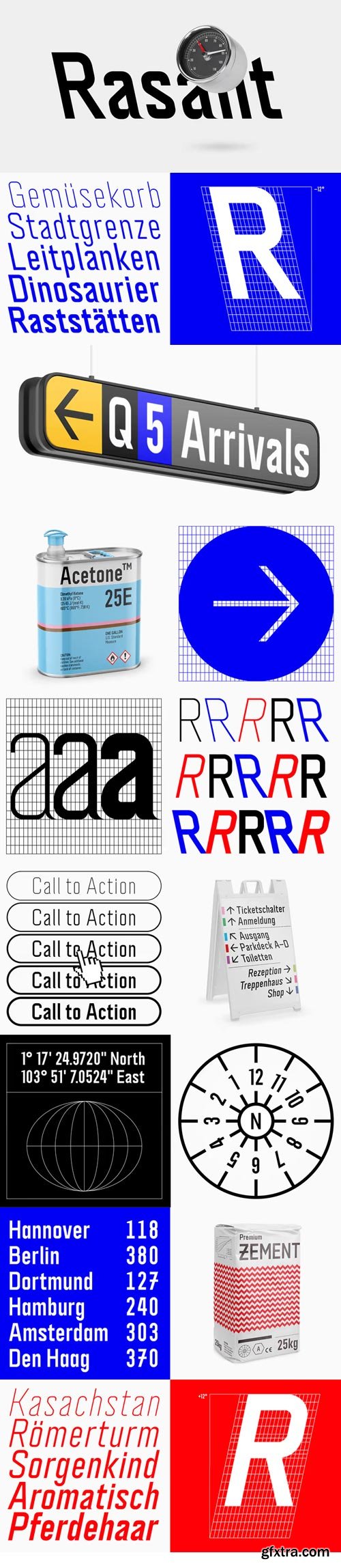
Neue Rasant Font Family
neue Rasant is an interpretation of a typeface used by the Singapore Land Transit Authority for its directional signage. The typeface design is based on a rigid grid with little to no room for optical compensations or any kind of harmonisation whatsoever. This approach can be seen as epitomic to an engineer’s way of designing which offers paradoxically unorthodox solutions in a seemingly orthodox system.